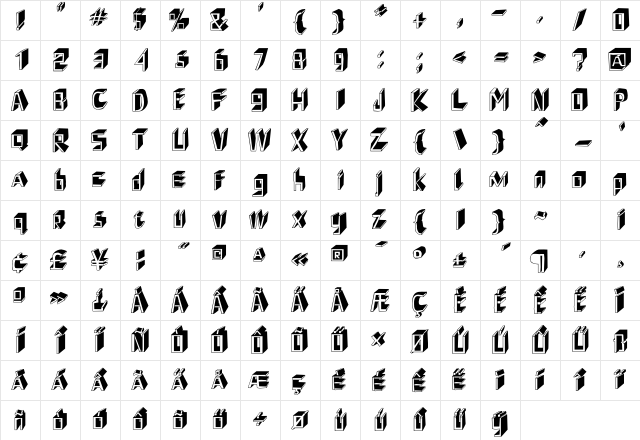
ShoeRepairs Shadow Free Font
ShoeRepairs Shadow
Style: Shadow
Design Context for ShoeRepairs
ShoeRepairs is built around its visual character rather than neutral utility - its distinctive forms are designed to make an impression at display sizes.